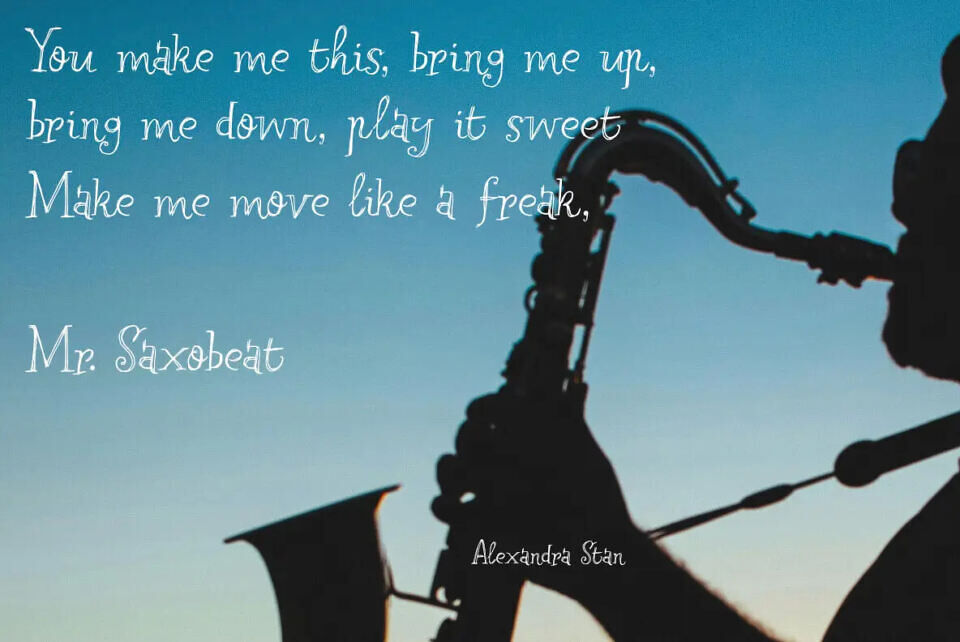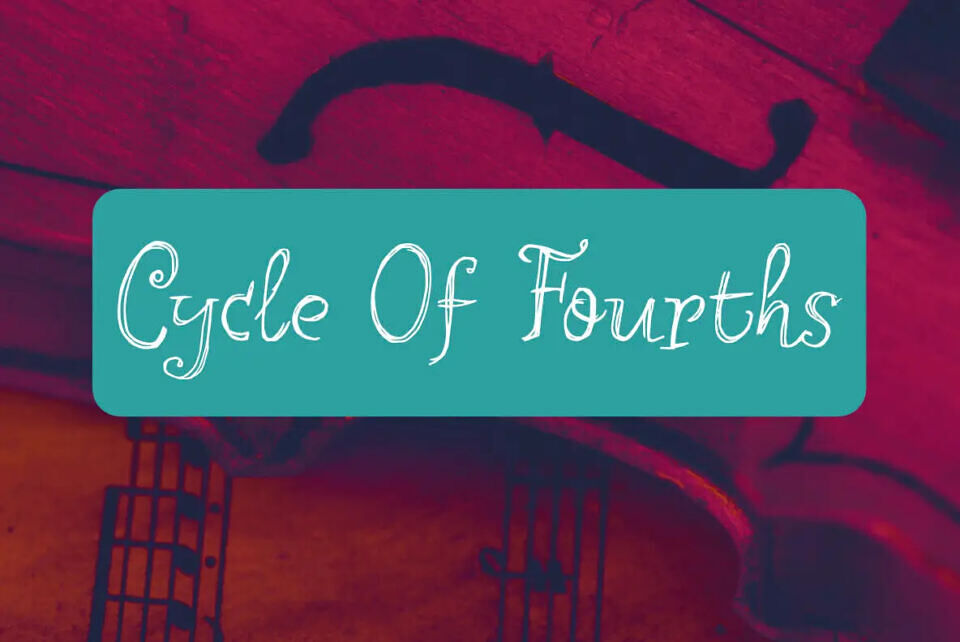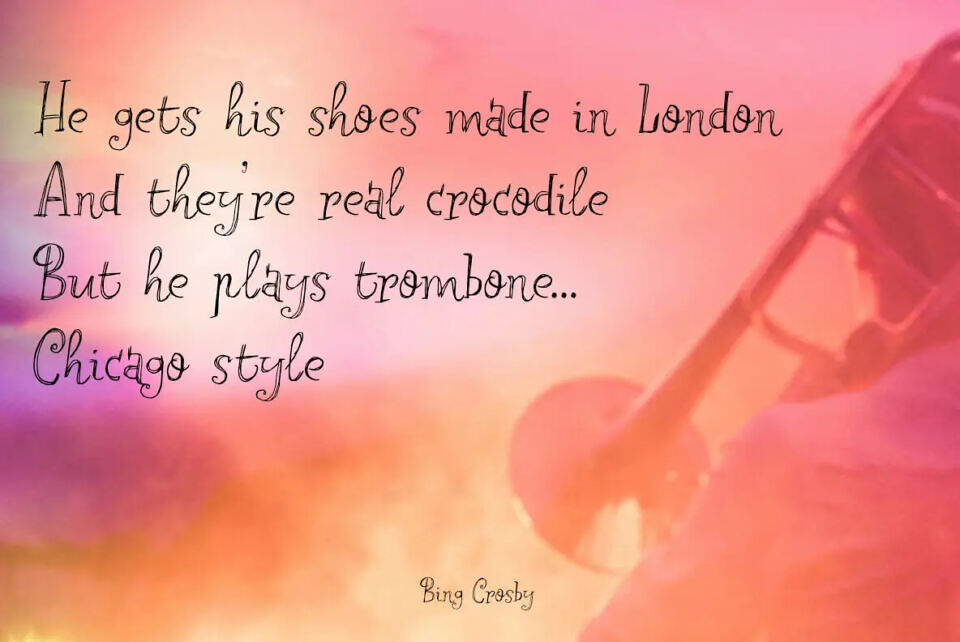
Cycle Of Fourths (or Circle Of Fourths) is a musical term. It is a listing of notes that move up by successive perfect fourths intervals. You can forget about that, I was just looking for a good name for this curly font and this is what I found!
Cycle Of Fourths is an elegant, handmade font. A little curly, a little old-fashioned maybe, but also out of the ordinary and unique.